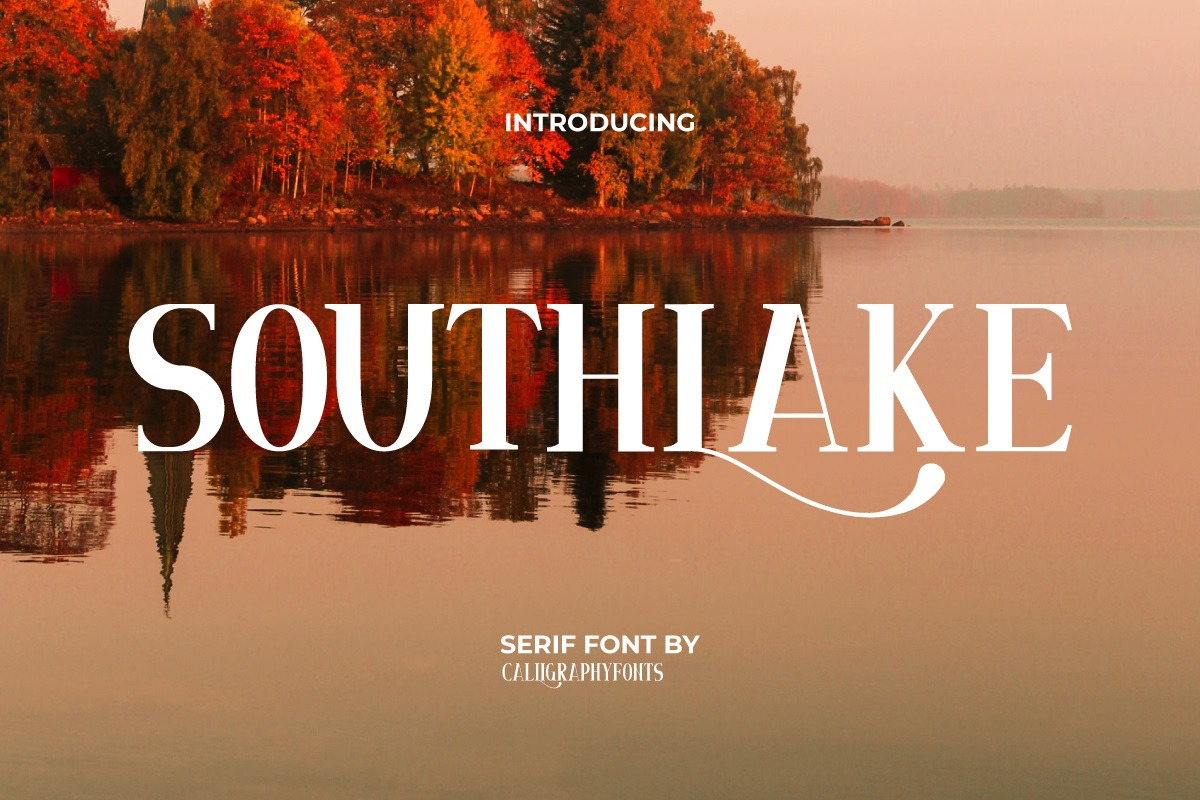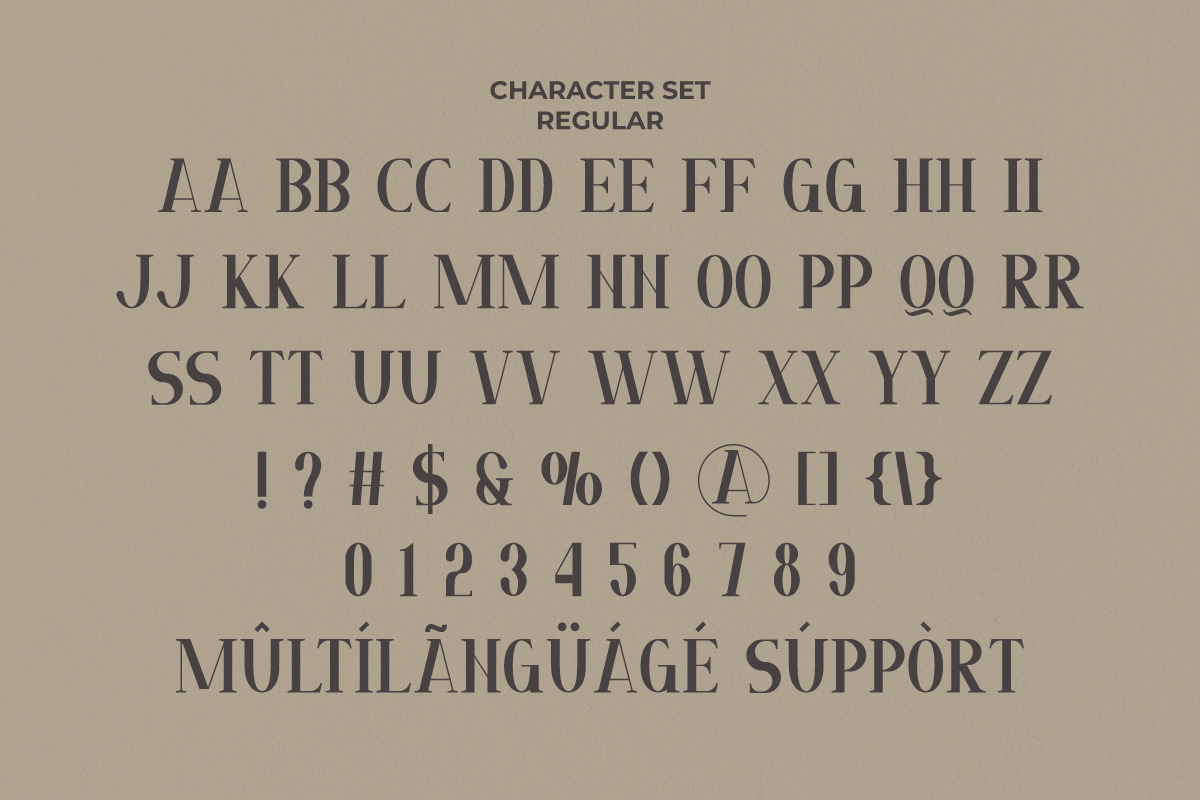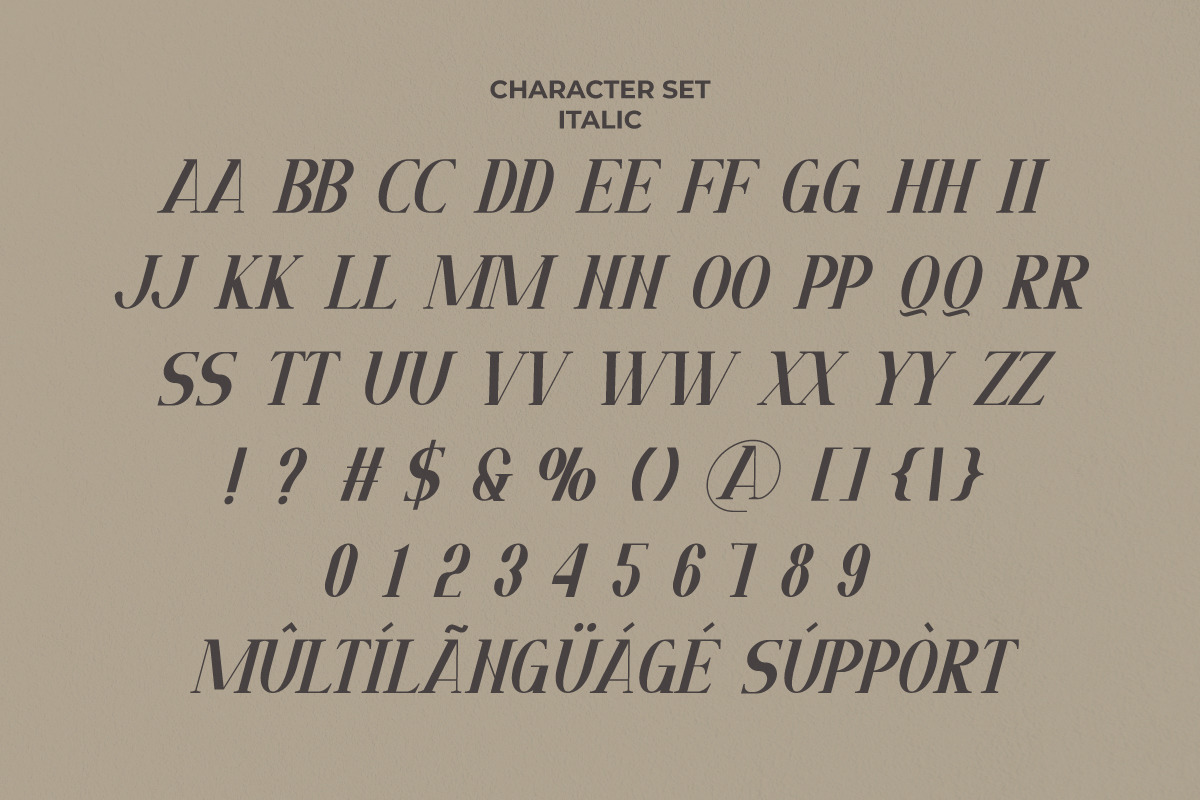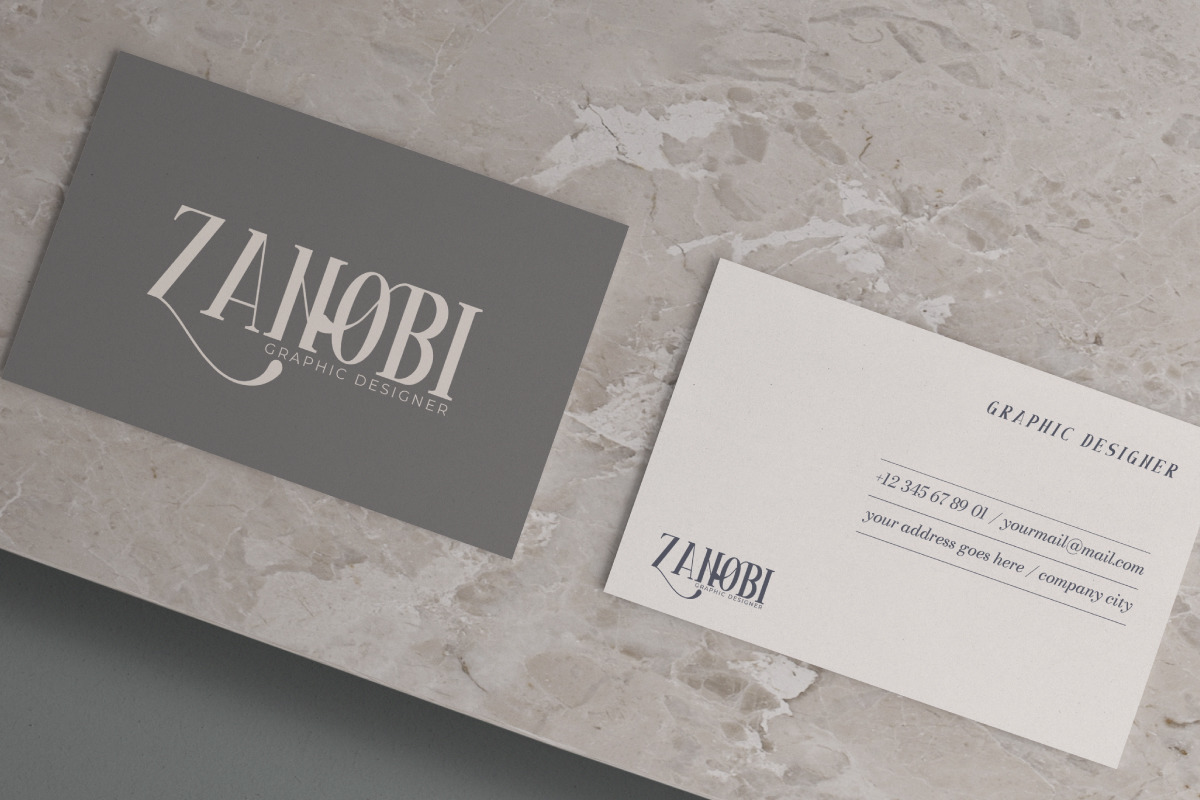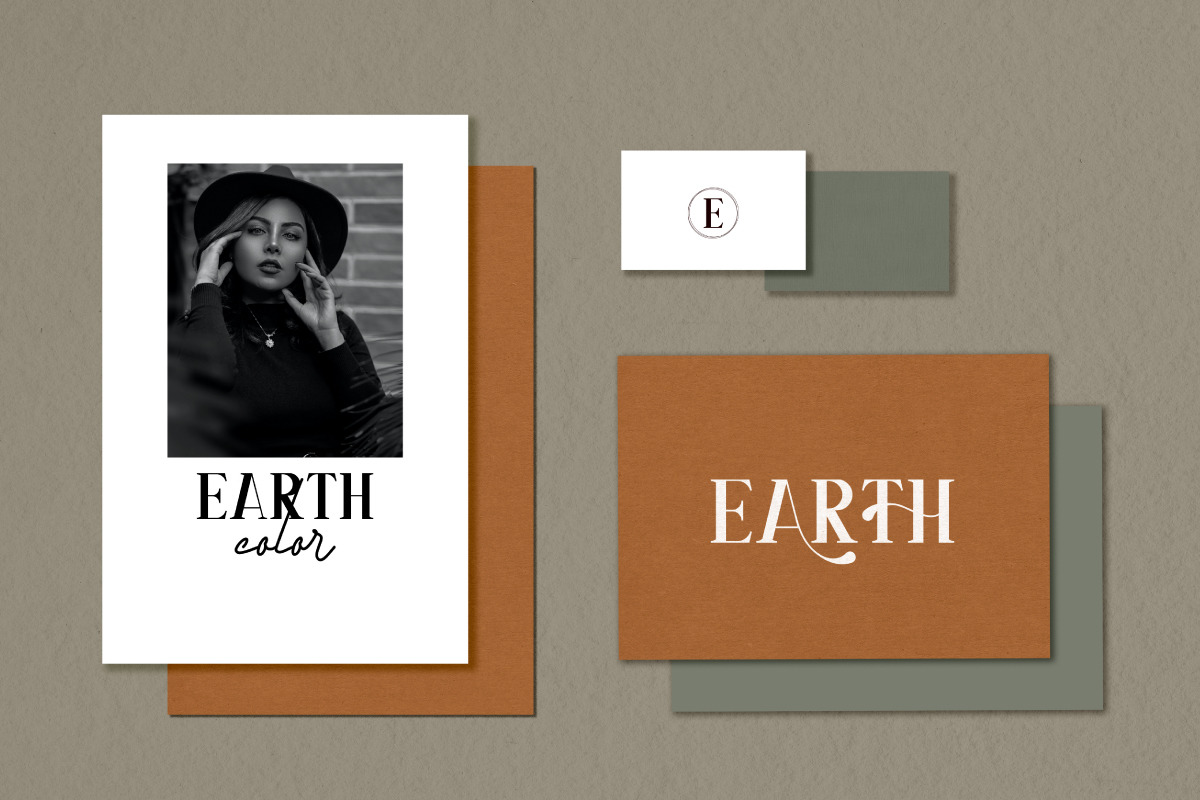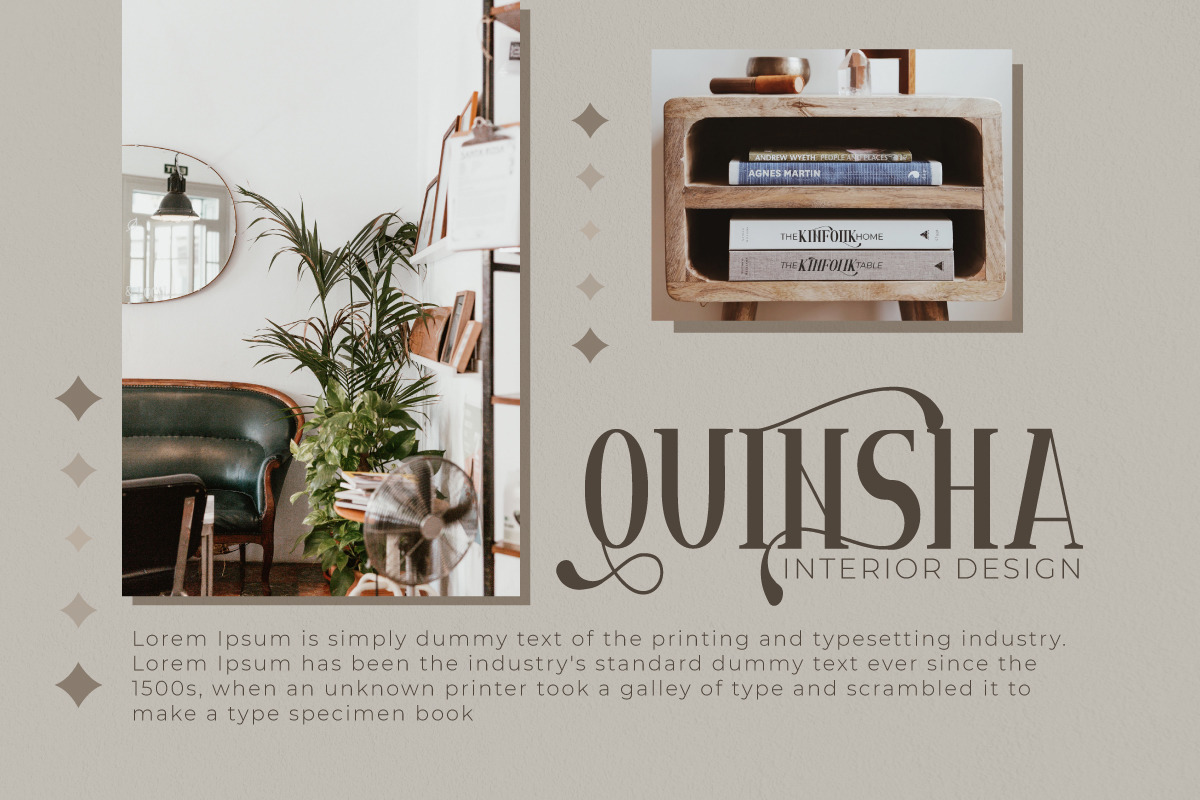
Southlake Serif Elegant Style Font
Southlake is a serif display font family has 2 styles : regular and italic. The style of this font are stylish, clean, elegant, and modern font. Southlake will be great for any projects including : branding, logo, stationery, business card, signage, flyer, brochure etc. The font comes with five different styles : Regular, Bold, Outline, Bold-italic and Italic